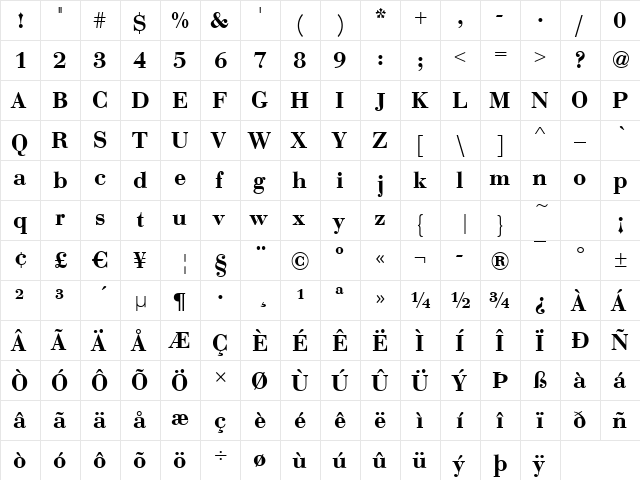
Bodoni-Demi Regular
Design Context for Bodoni-Demi Typeface
Bodoni-Demi takes a measured approach to typography — its balanced proportions and neutral character make it a reliable workhorse for both digital and print work.